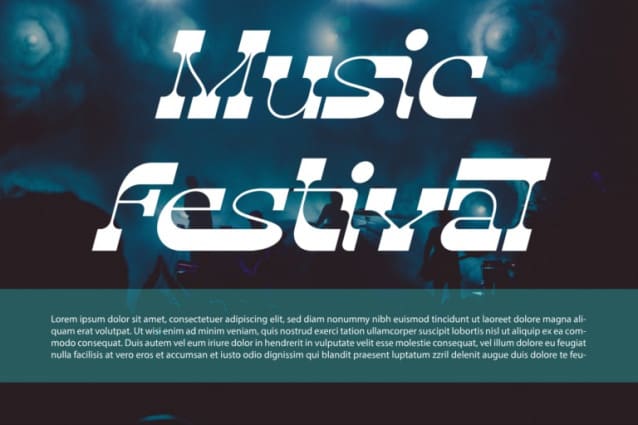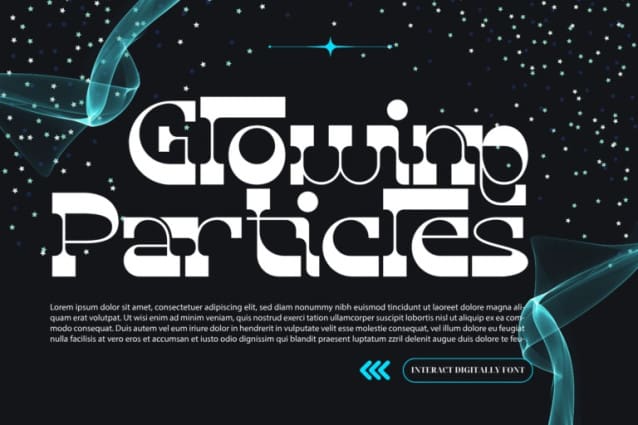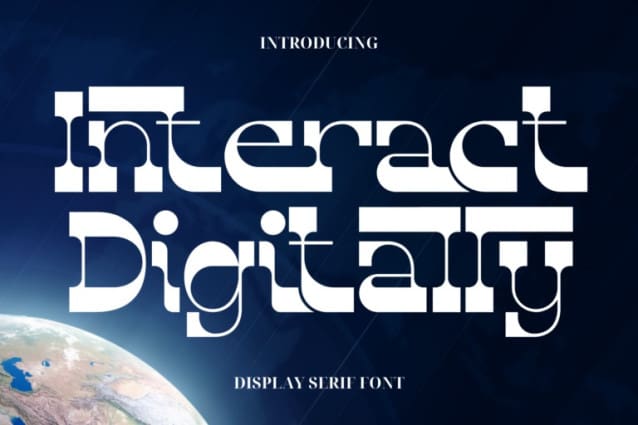
Interact Digitally Font
Interact Digitally Font is a retro vintage slab serif font family brings nostalgic charm and bold character to any design. This font style combines the solid, thick serifs typical of slab fonts with retro-inspired details from past decades. Featuring intricate ligatures and unique, this font beautifully blends multiple letters into distinctive, seamless shapes, giving your typography a one-of-a-kind, artistic flair. Ideal for branding, packaging, and editorial designs, a vintage slab serif font family adds a bold yet classic appeal, capturing a heritage-inspired style that stands out across print and digital formats.
Interact Digitally was built with OpenType features and includes 100 ligatures, alternate, numbers, punctuation, and it also supports other languages.